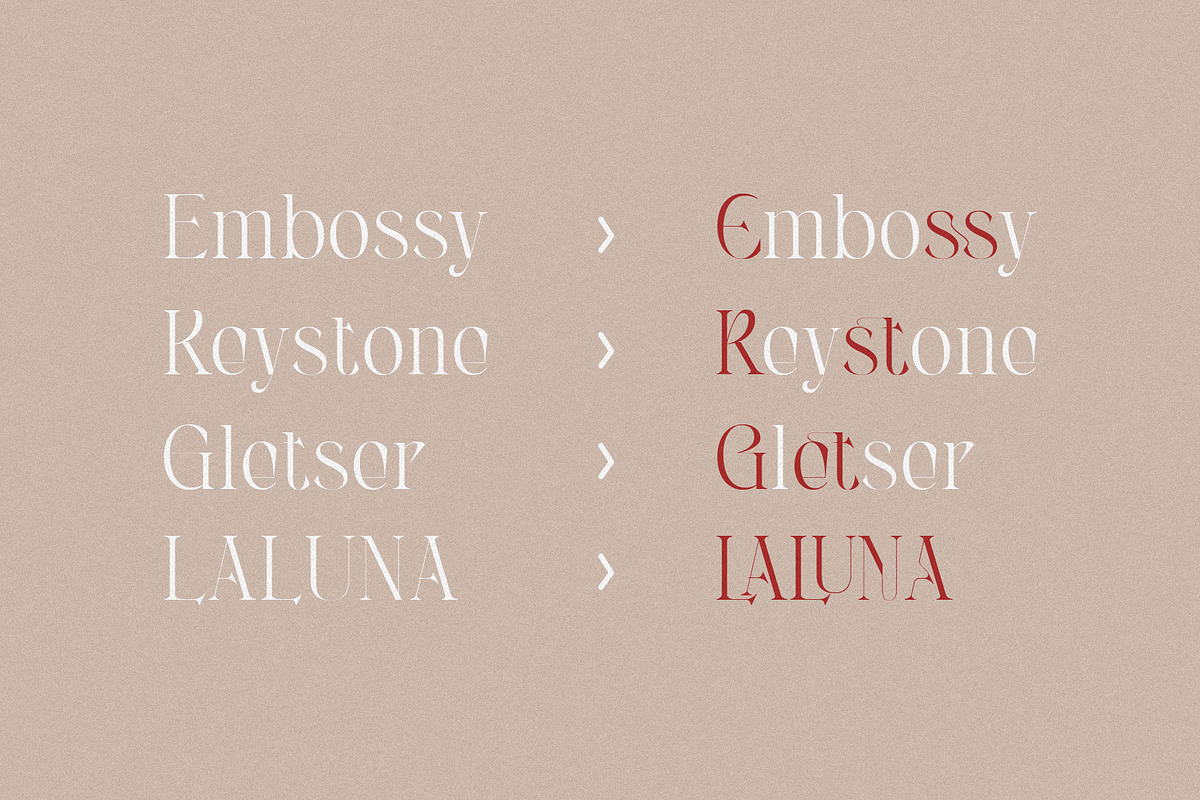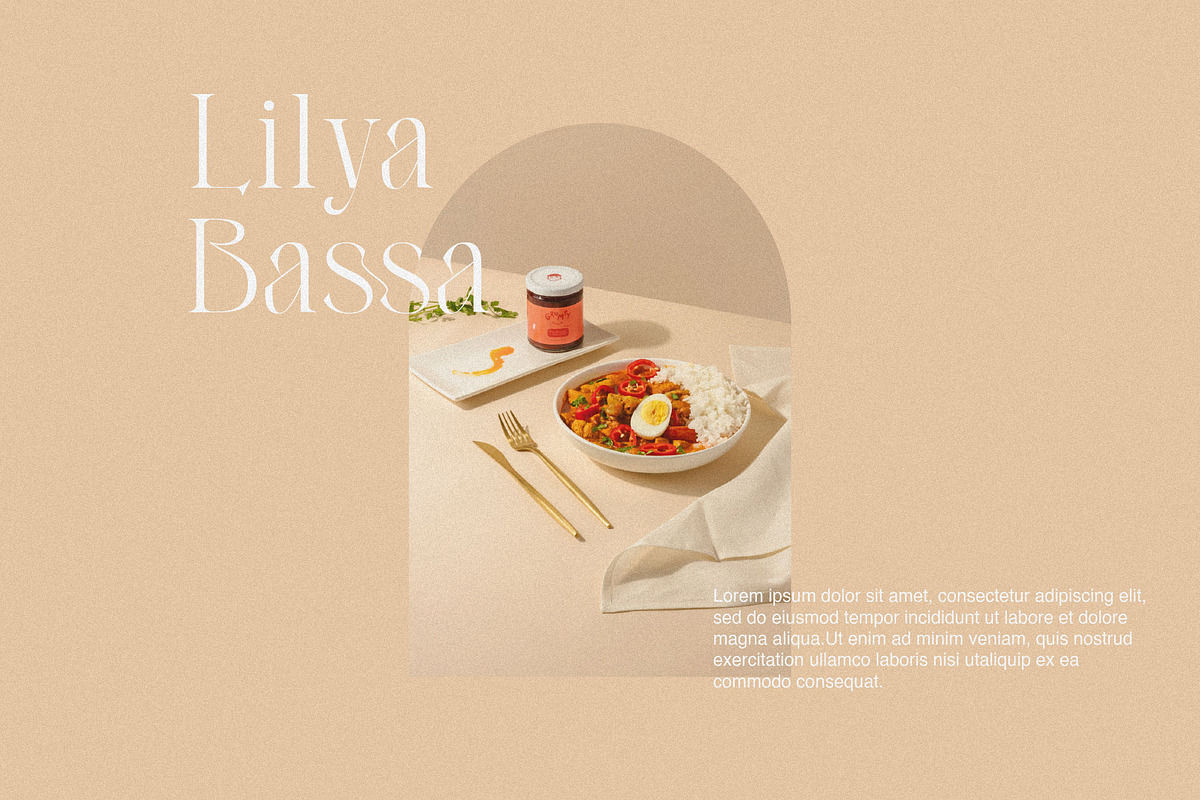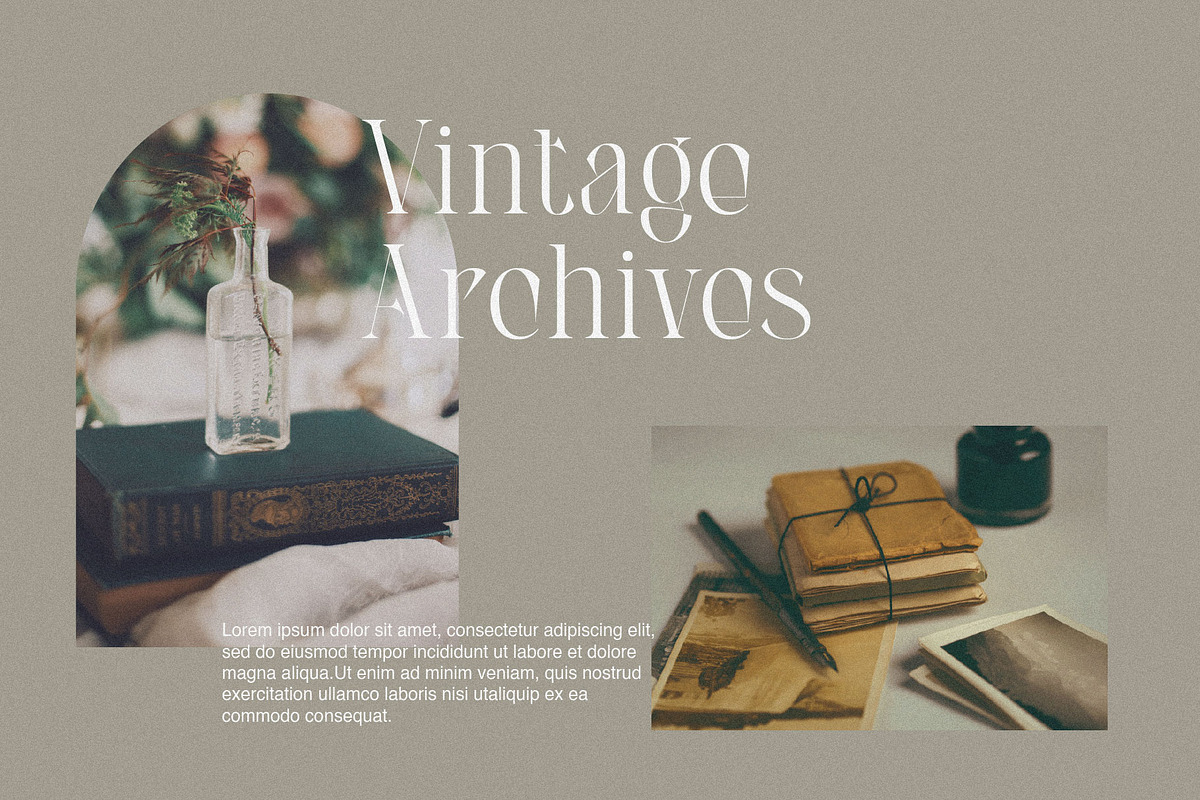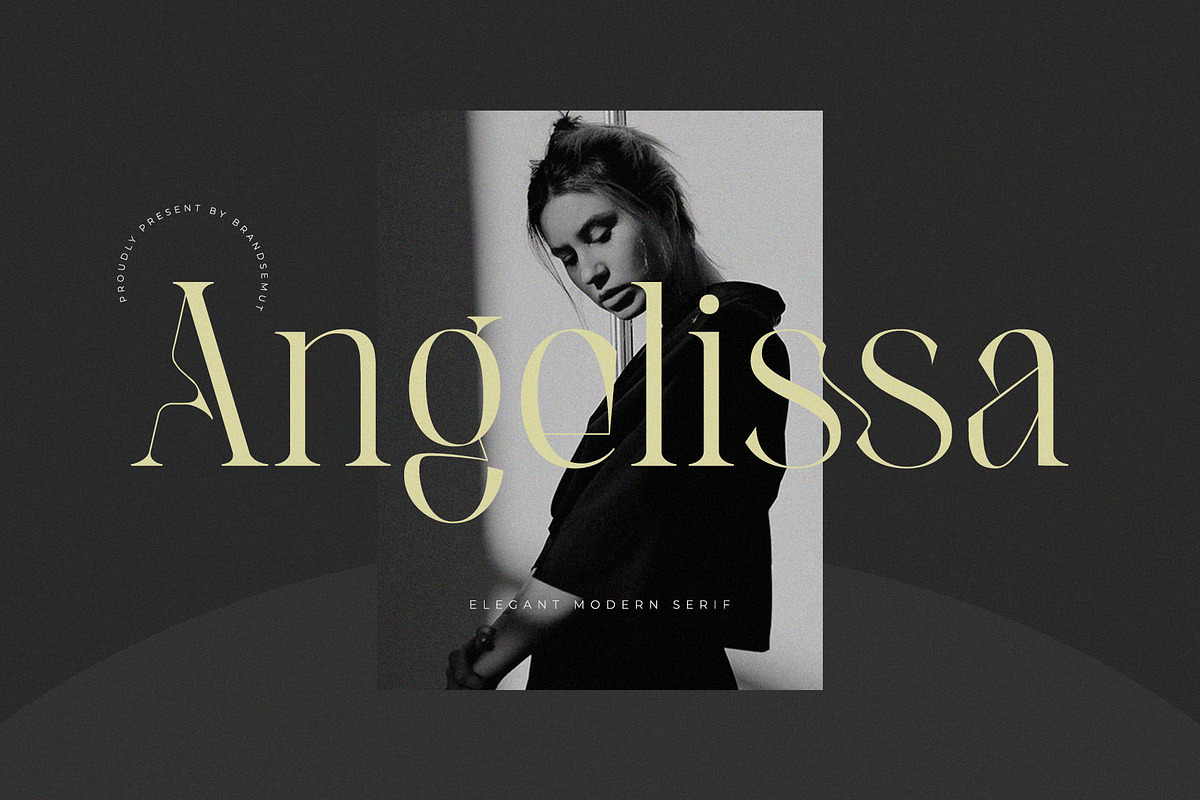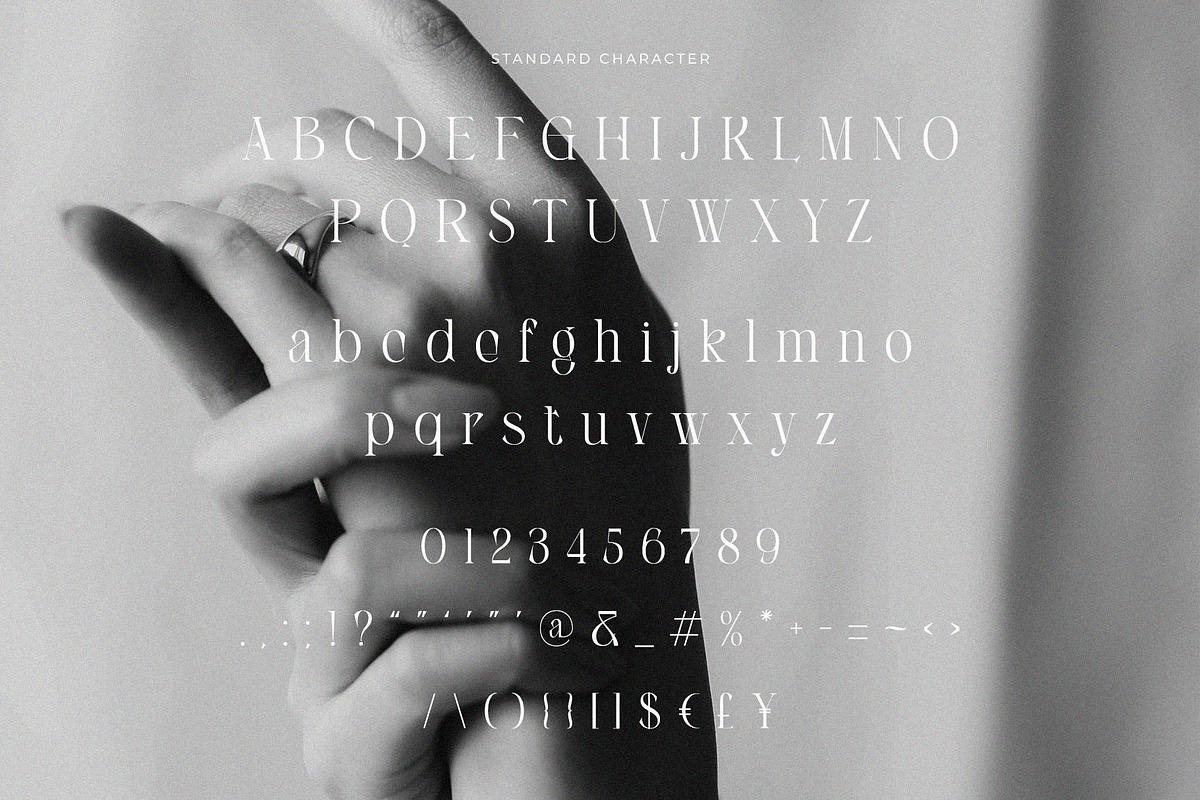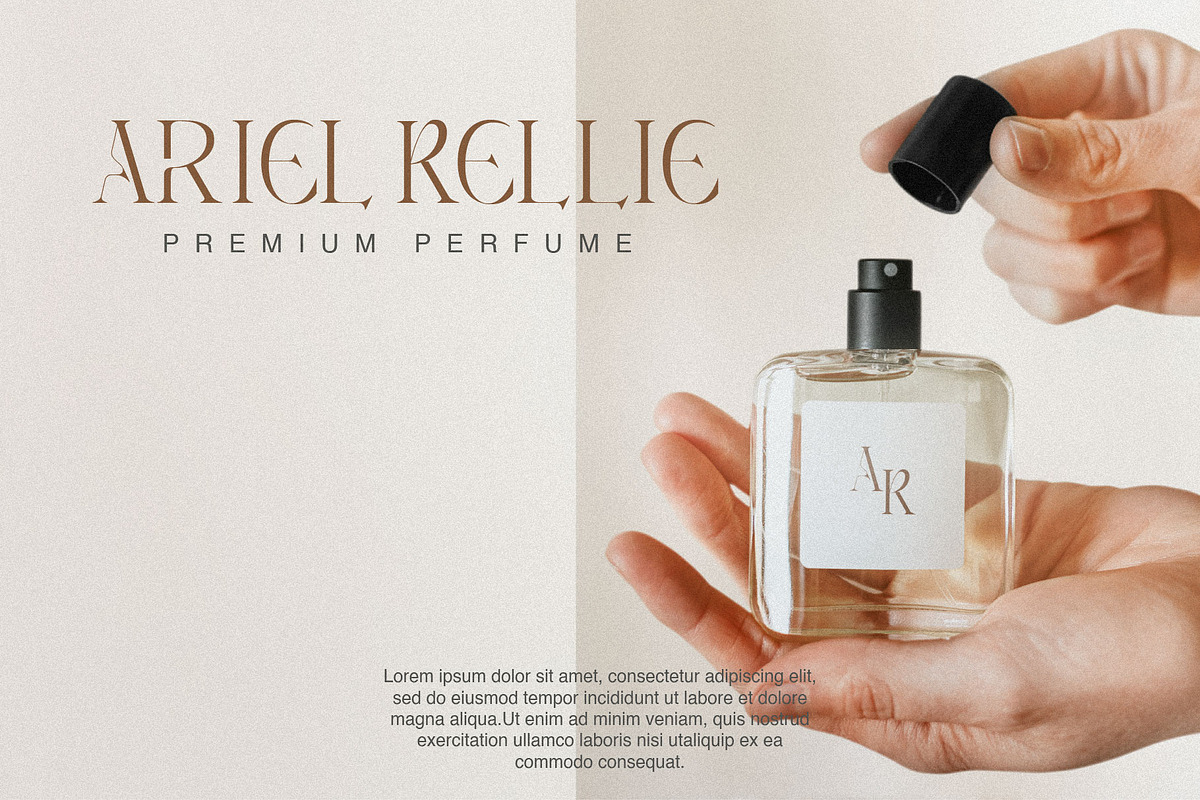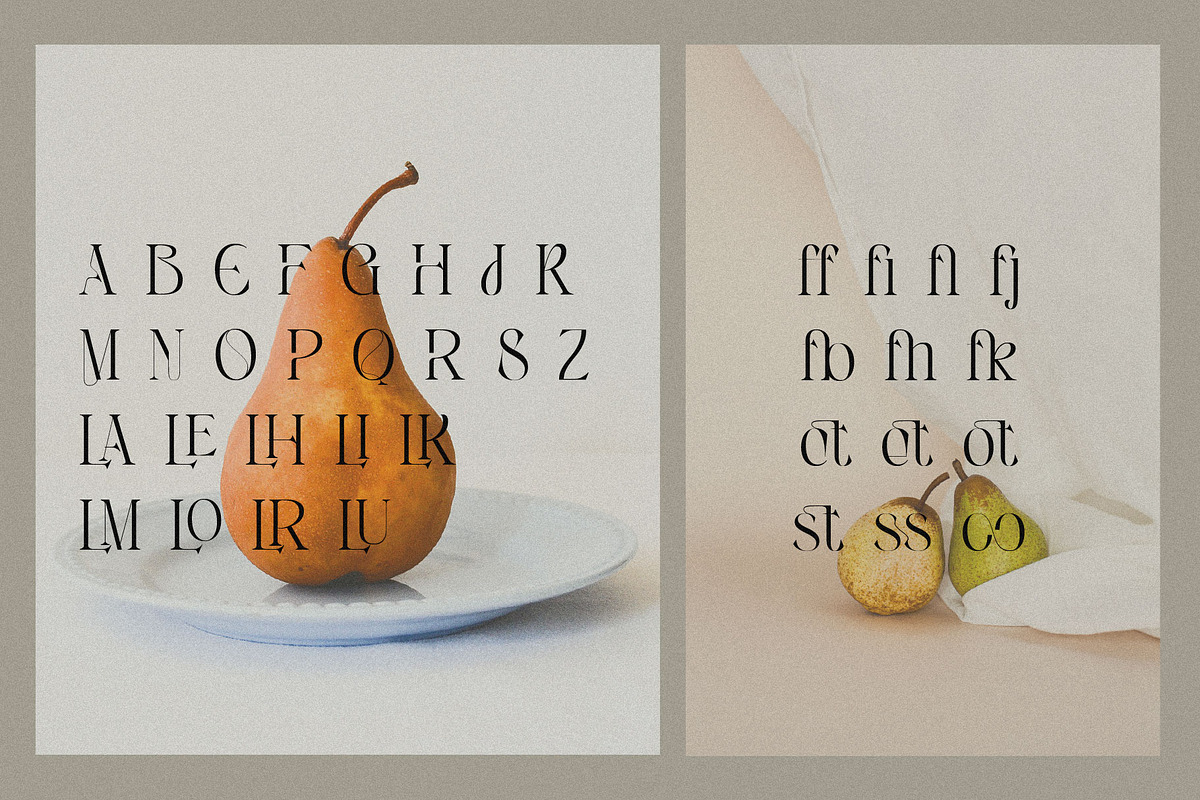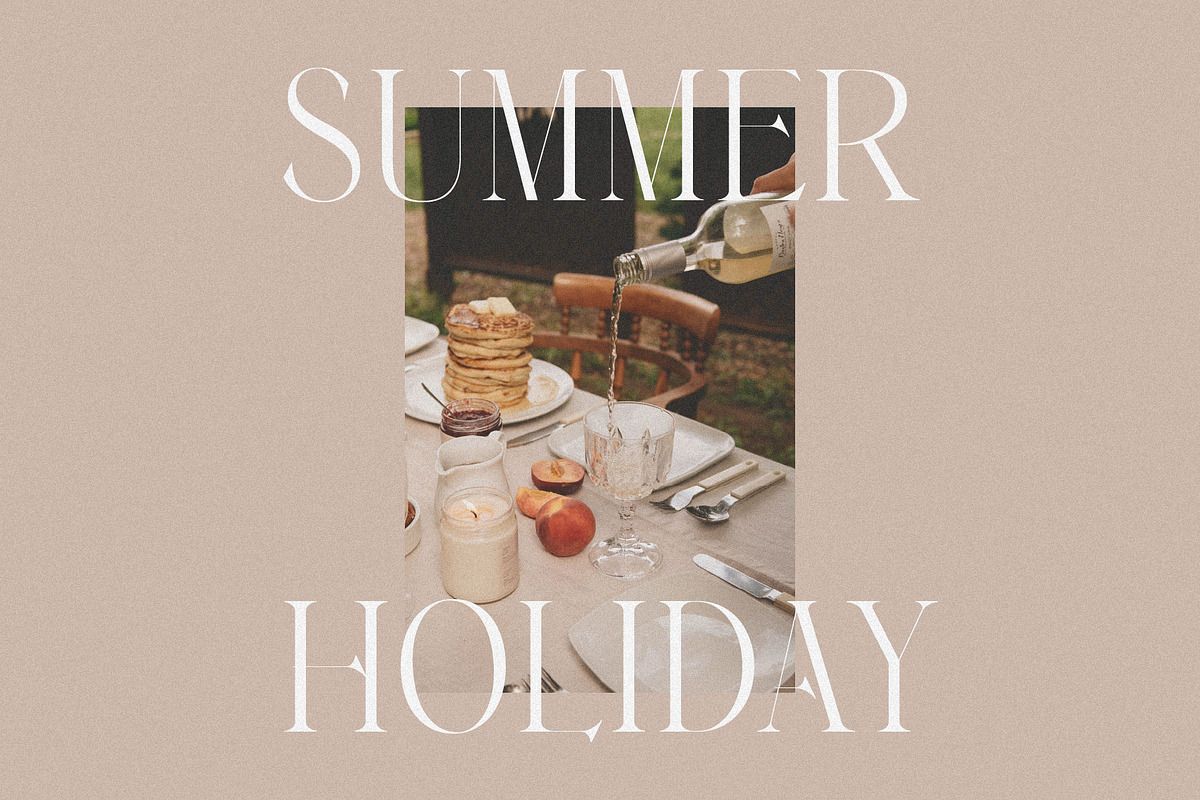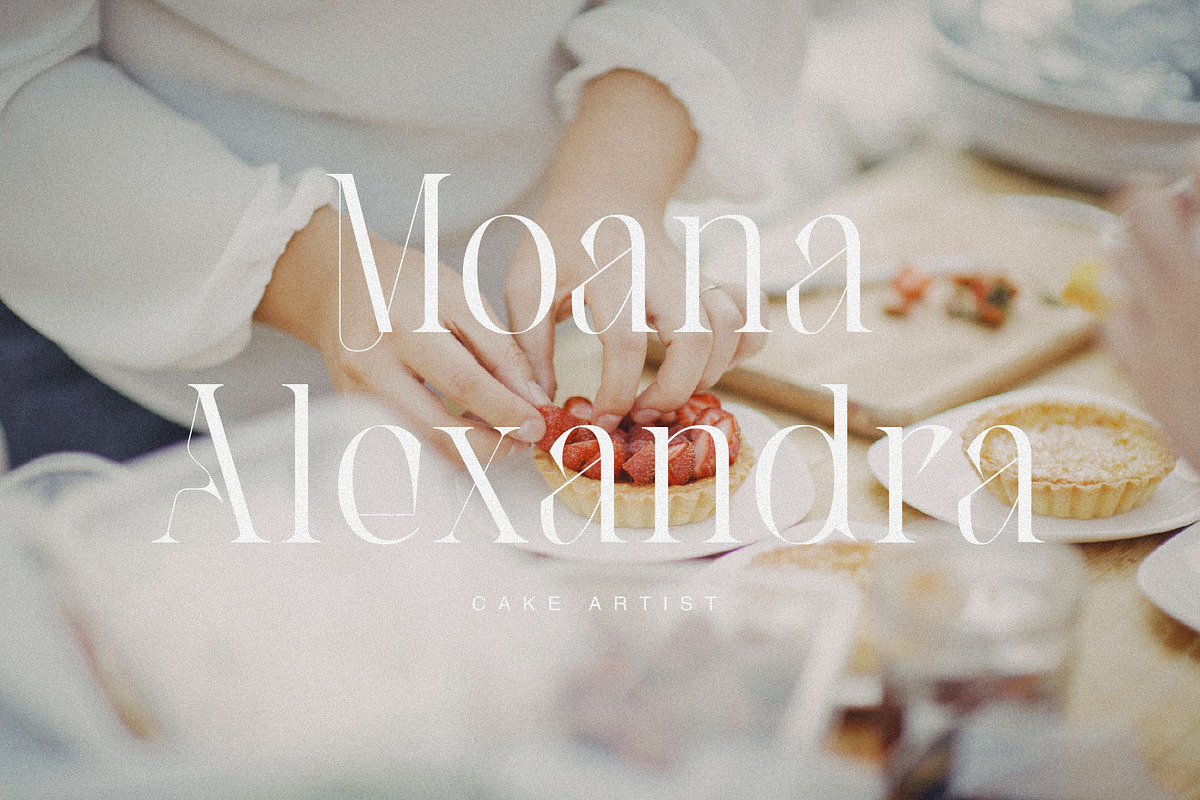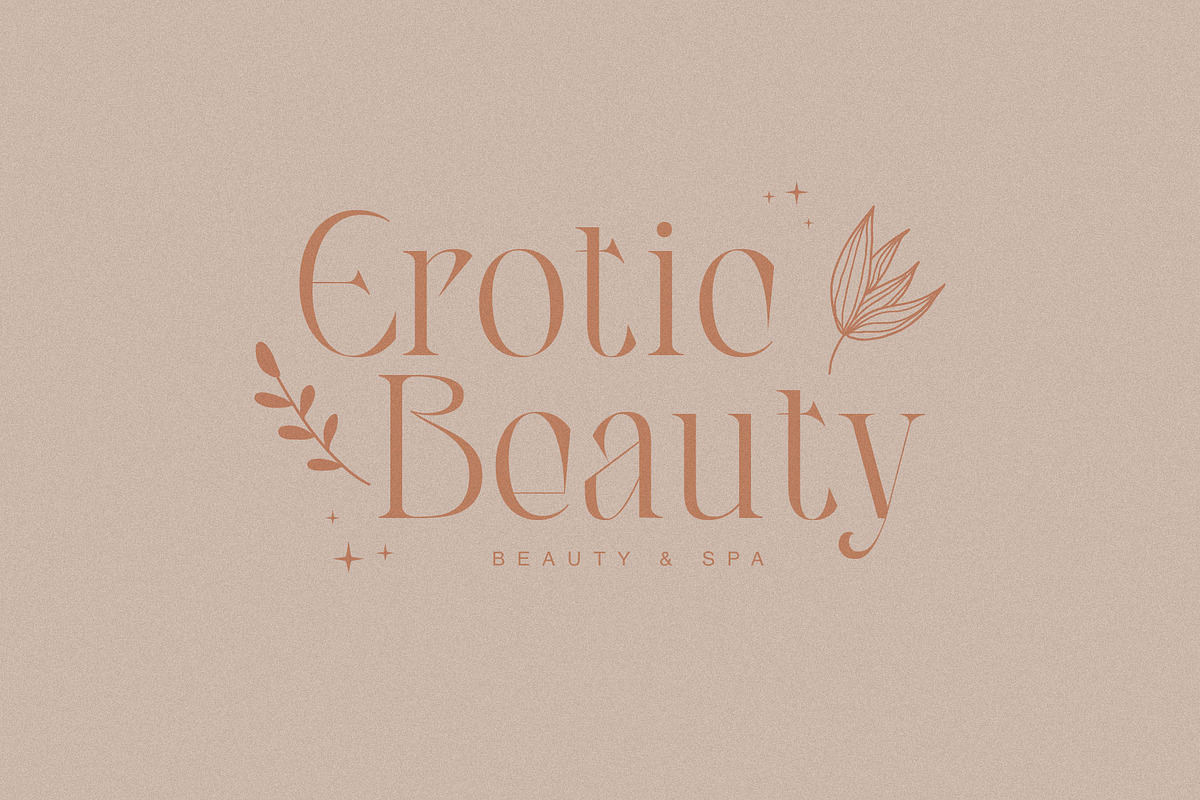
Angelissa - Elegant Modern Serif
Introducing our new "Angelissa", Modern ligature typeface with Unique, Classy and Stylish. Is perfect for branding, logos, invitation, master heads, and more.